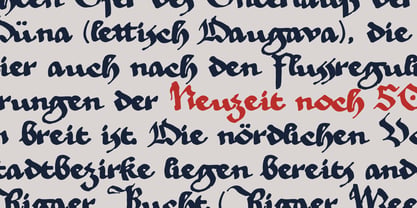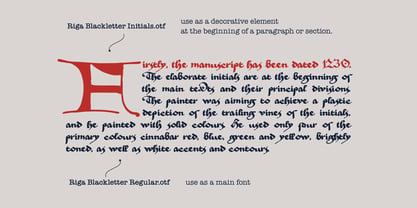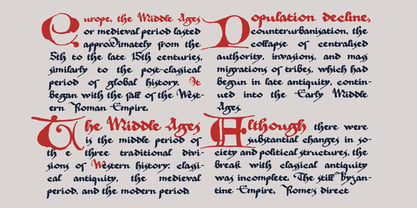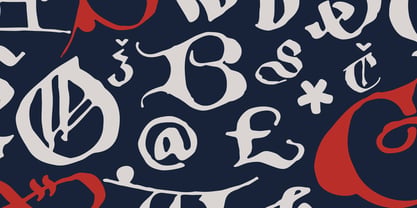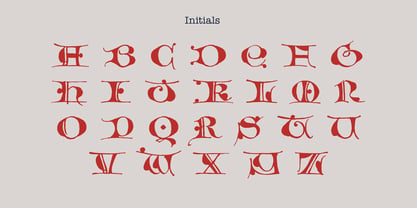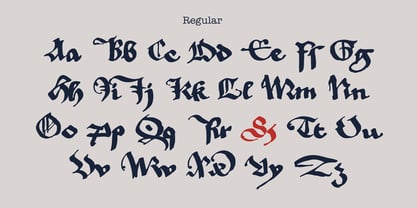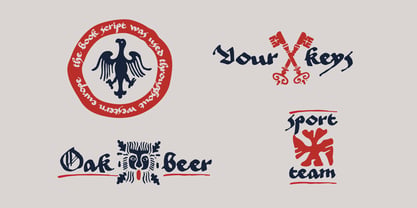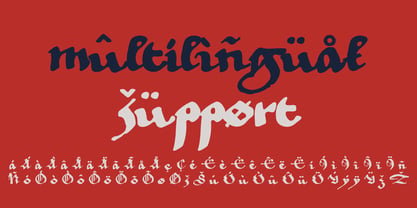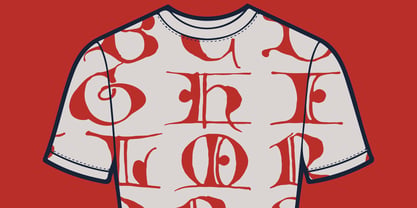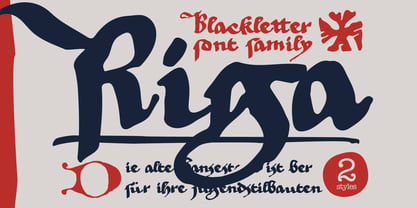
Old Riga Blackletter
by Kaer
The Old Riga Blackletter Font Family was designed by Roman Korolev and published by Kaer. Old Riga Blackletter contains 2 styles and family package options. More about this family
This medieval font based on Riga's city rules printed in XV century. In fact it was published in German language and called Stadt Recht von Riga, but I've added multilingual support for modern usage. Here are two fonts one with initials, and one for the text. So you can precisely imitate medieval text.
Perfect for adding a touch of history and sophistication, this typeface works beautifully in:
• Medieval book covers & editorial layouts
• Decorative logos & old style branding projects
• Vintage posters & invitations
• Historical packaging design
• Heritage certificates & luxury calligraphic stationery
Whether you're creating a vintage-inspired brand or a dramatic historical composition, this font delivers a unique blend of authenticity and artistic flair.
Why You’ll Love It
• Authentic medieval inspiration
• Highly detailed ornamental style
• Perfect for eye-catching headlines and initials
• Adds instant character to any design
Designers: Roman Korolev
Foundry: Kaer